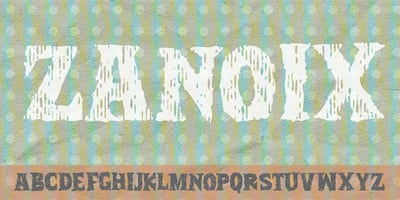
Zanoix Font Family was designed by Jakob Fischer and published by PizzaDude.dk. Zanoix contains 1 styles and family package options. Zanoix is based on text from an old horror poster. Comes with ligatures for both double letters and numbers. You will need to use OpenType supporting applications to use the auto-ligatures